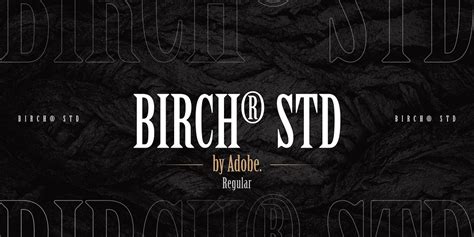
Birch Std Font. Web birch font pairings about description birch is an adobe originals typeface designed in 1990 by kim buker chansler. Birch is based on a latin condensed wood type found in a.
Web birch font pairings about description birch is an adobe originals typeface designed in 1990 by kim buker chansler. Please contact us or report dmca via email: Web download birch std for free, view sample text, rating and more on fontsgeek.com. File script name birchstd.otf download free for personal use. Birch is based on a latin condensed wood type found in a. About birch std regular font. Web birch std regular font by dafontfree. Web download birchstd font free!